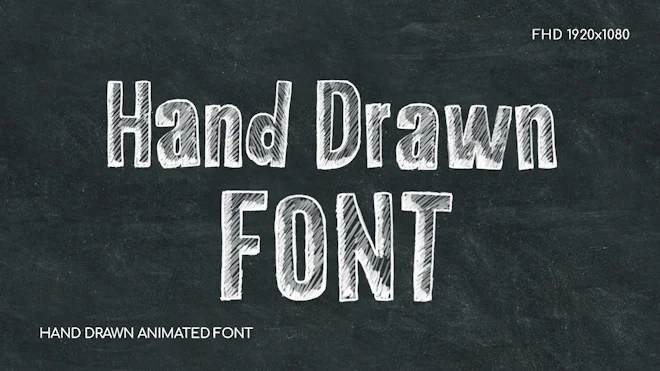
Hand Drawn Font is a stock motion graphics package that contains 68 chalk-drawn fonts, including upper and lower case letters, along with 16 commonly-used symbols. The letters come with alpha channel. The package comes in 1920x1080 (Full HD) resolution with alpha. It is applicable to use in any project where you want to use chalk-drawn text. This video will look great in your next edit, social media campaign, or documentary. Take your video's production value up a notch, and blow away your viewers.